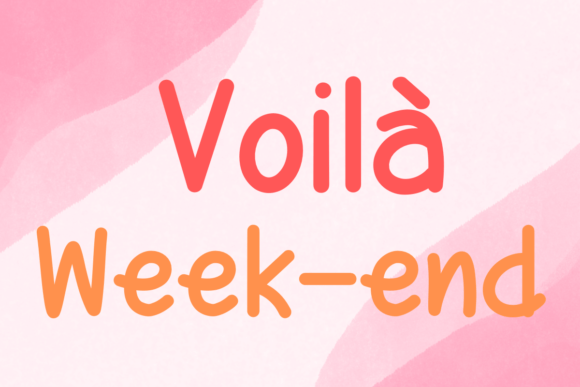
Behold, the Voila Week-end Font, an enchanting creation by Piyata Digital, beckons you to embark on a typographic adventure. This captivating script font exudes charm and simplicity, inviting you to add a touch of whimsy and playfulness to your designs. Whether you're crafting heartfelt invitations, whimsical posters, or personalizing your digital spaces, Voila Week-end Font is your perfect companion.
With its lovingly crafted characters, Voila Week-end Font captures the essence of effortless elegance. Each letter dances across the page, embodying the carefree spirit of a weekend getaway. The font's delicate strokes and playful curves evoke a sense of joy and spontaneity, making it an ideal choice for adding a personal touch to your creative projects.
Gone are the days of mundane typography. Embrace the magic of Voila Week-end Font and unleash your creativity. Transform ordinary words into works of art, where each letter becomes a brushstroke in your typographic masterpiece. Let your imagination soar as you explore endless possibilities, knowing that Voila Week-end Font will faithfully accompany you on this artistic journey.
Picture this: a heartfelt invitation adorned with the graceful strokes of Voila Week-end Font, inviting your loved ones to a special gathering. The font's charming personality shines through, creating an atmosphere of warmth and anticipation. Or envision a whimsical poster advertising a local fair, where the playful characters of Voila Week-end Font dance across the page, enticing passersby with their joyful spirit.
Step into the world of Voila Week-end Font and discover a font that's more than just a collection of letters. It's an invitation to let your creativity flourish, to embrace the beauty of handwritten charm, and to make a lasting impression with every design you create.